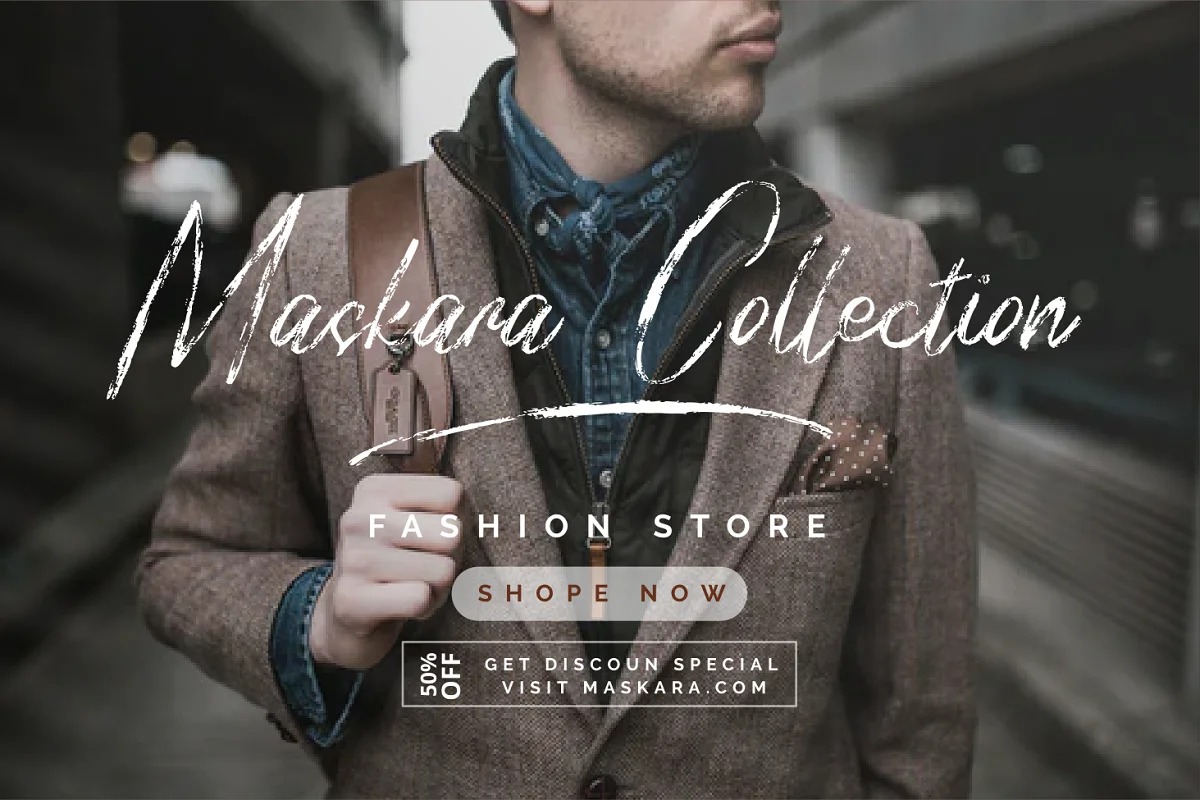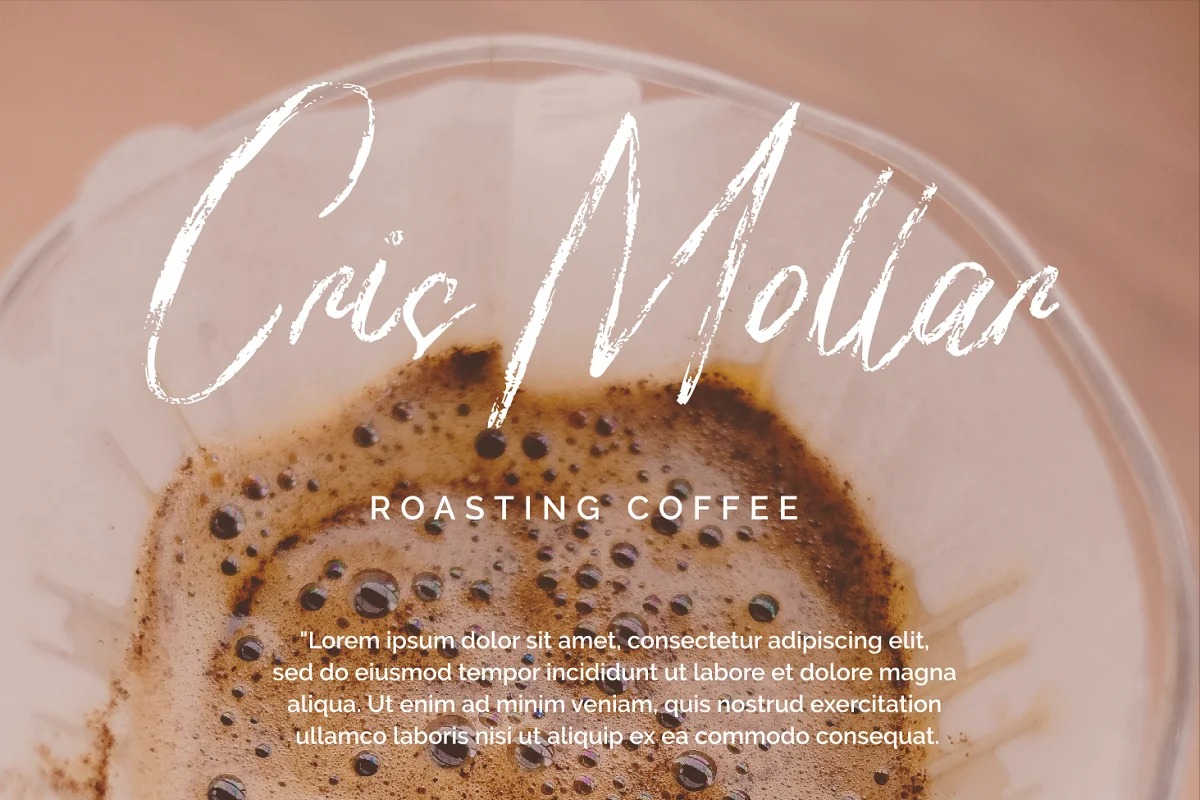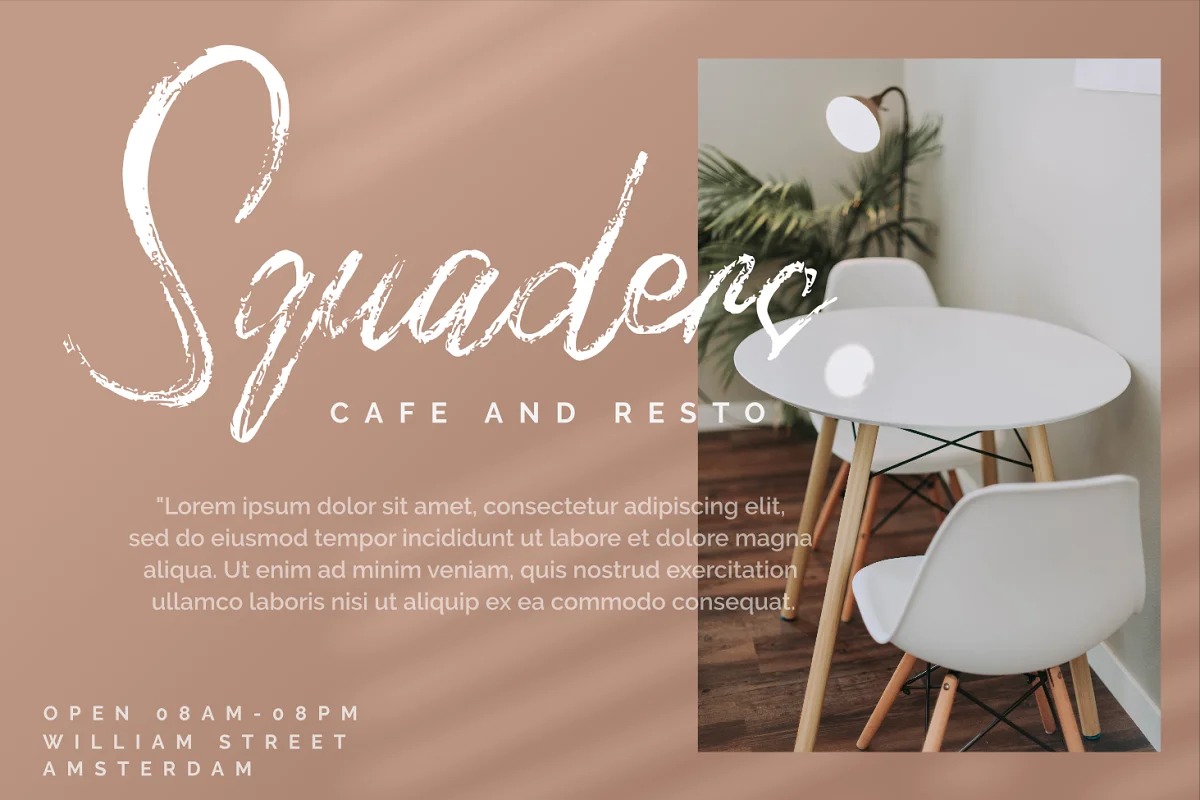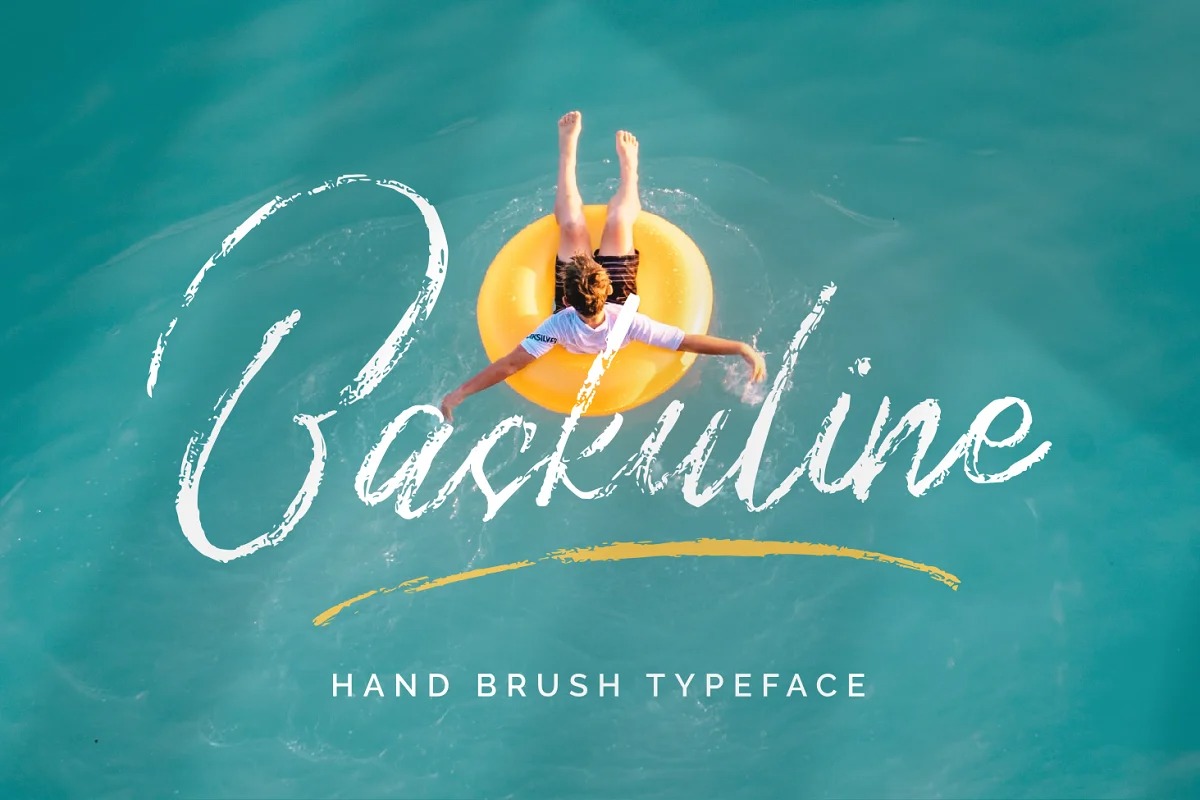
Baskuline Font
Baskuline Brush Font
It’s a unique brush font created by zeenesia studio with a rough brush to produce handwritten textured. Baskuline also has ligature which is very suitable if you don’t really like lowercase letters and want to change some letters with available ligature letters. and available lowercase alternatives that you can change according to your taste. Baskuline suitable for various projects such as stationery invitations, social media, logos, weddings, branding, graphic design with the addition of several binders and swashes. and can be combined with various types of serif fonts to perfect the project you want to work on.